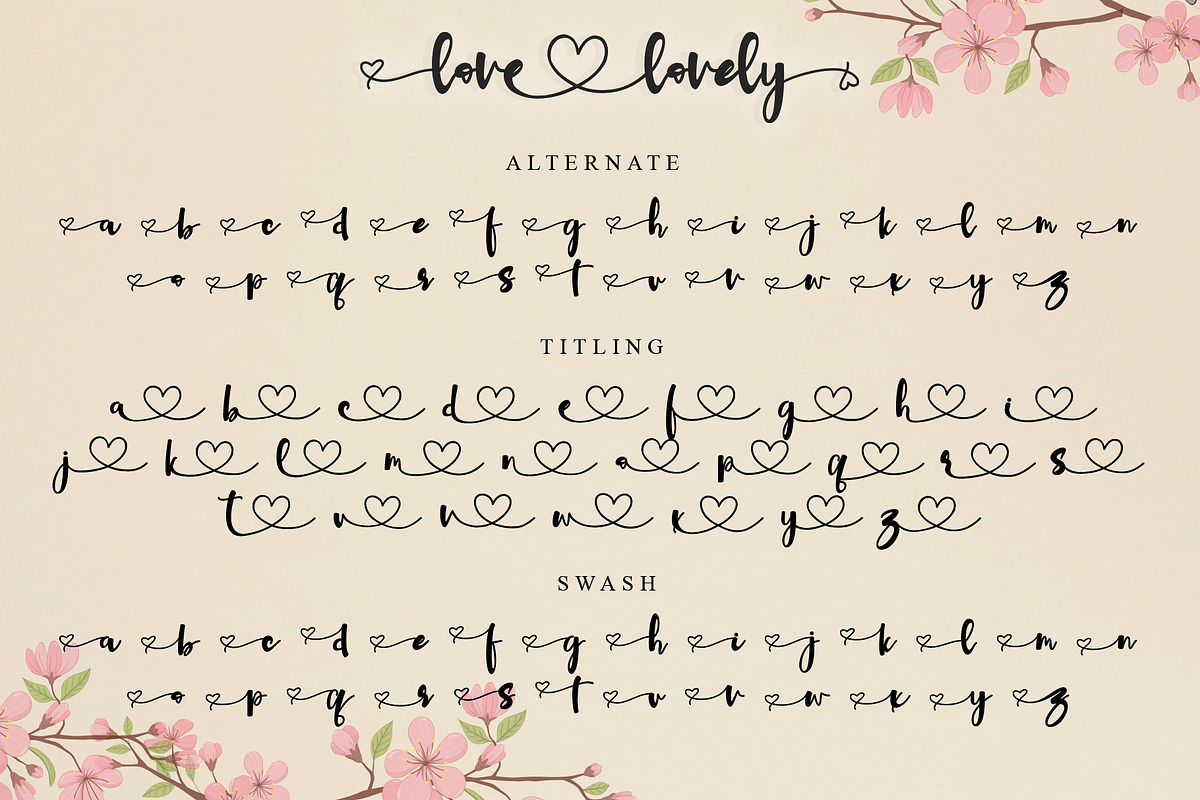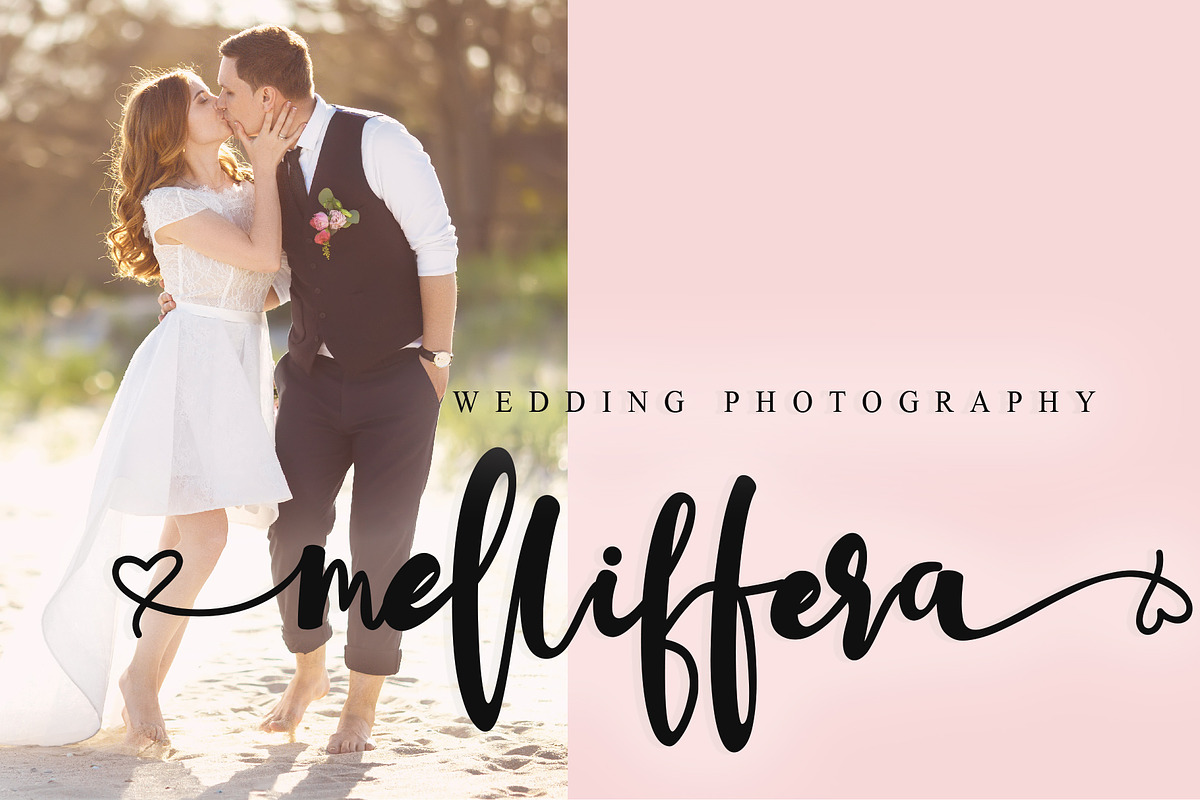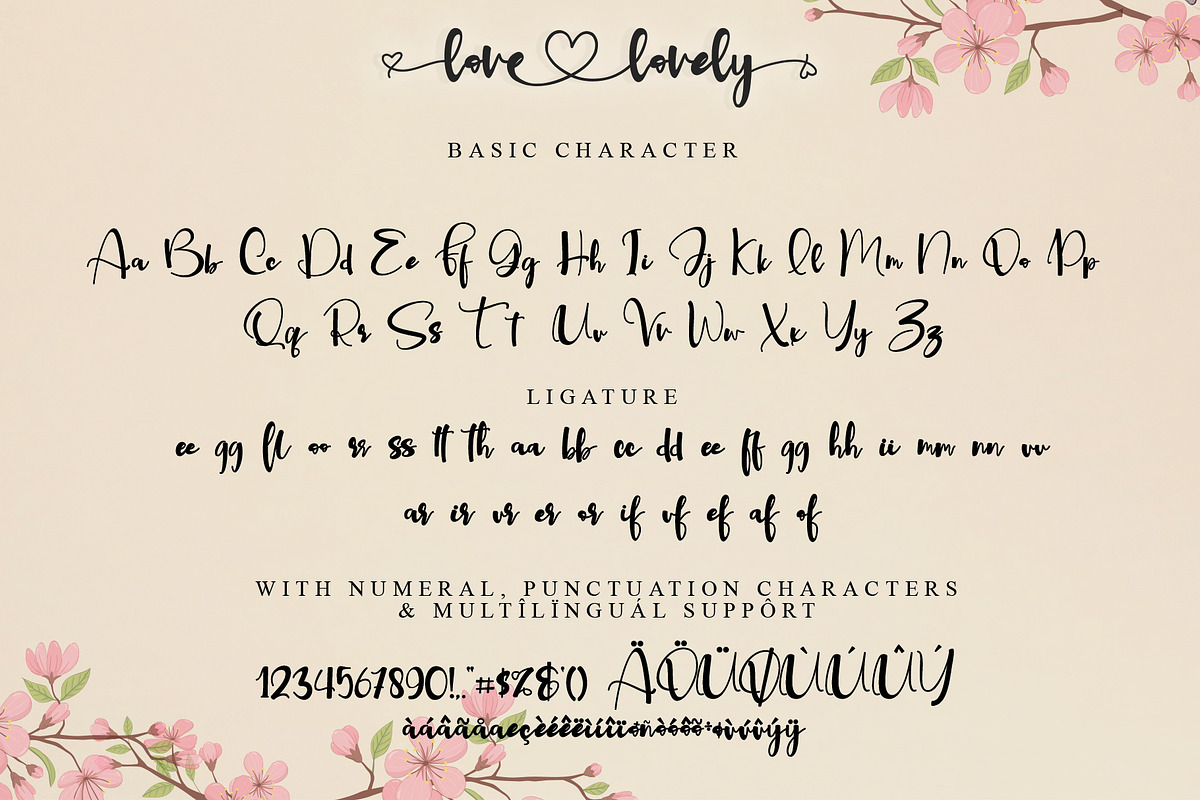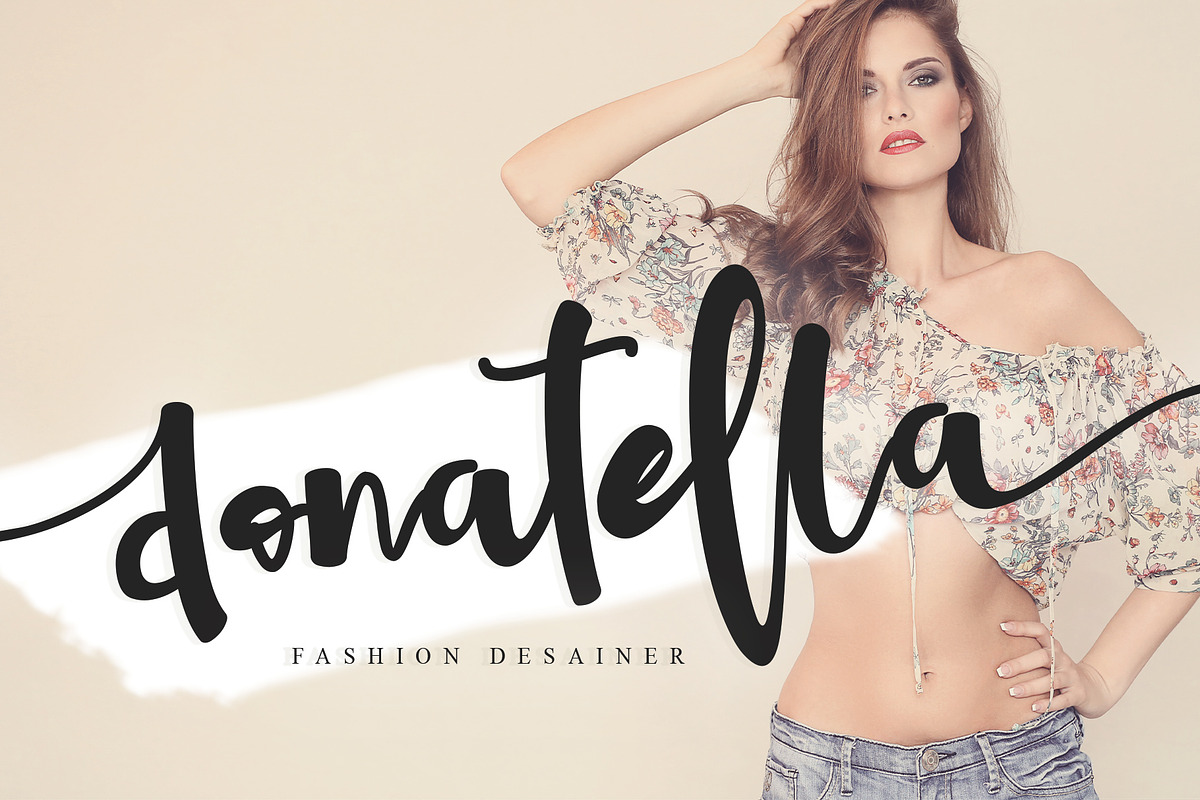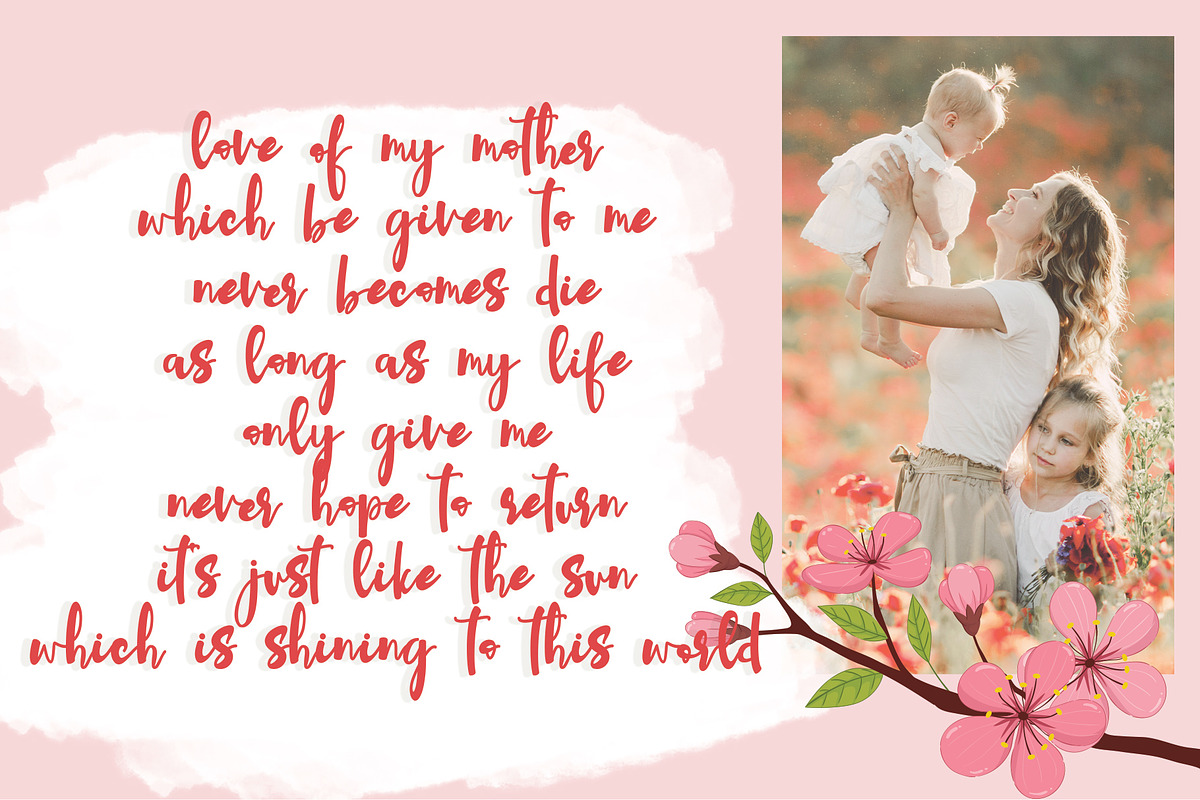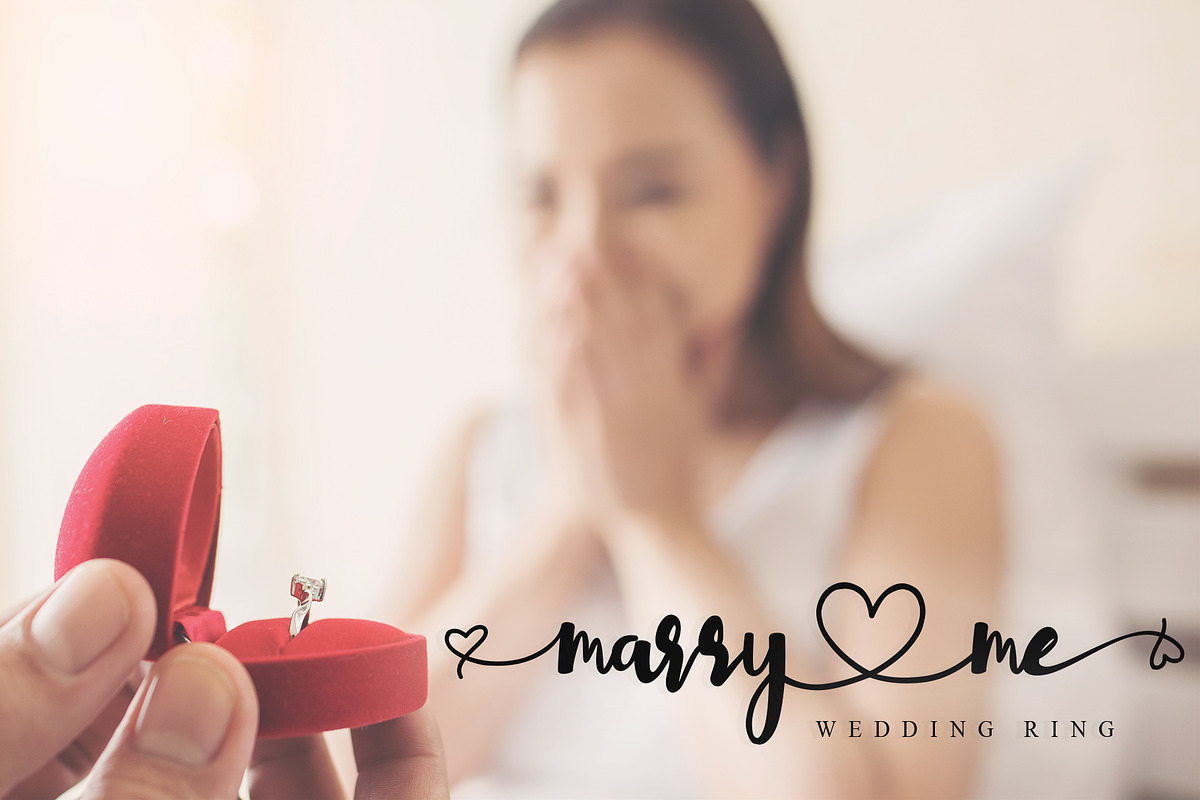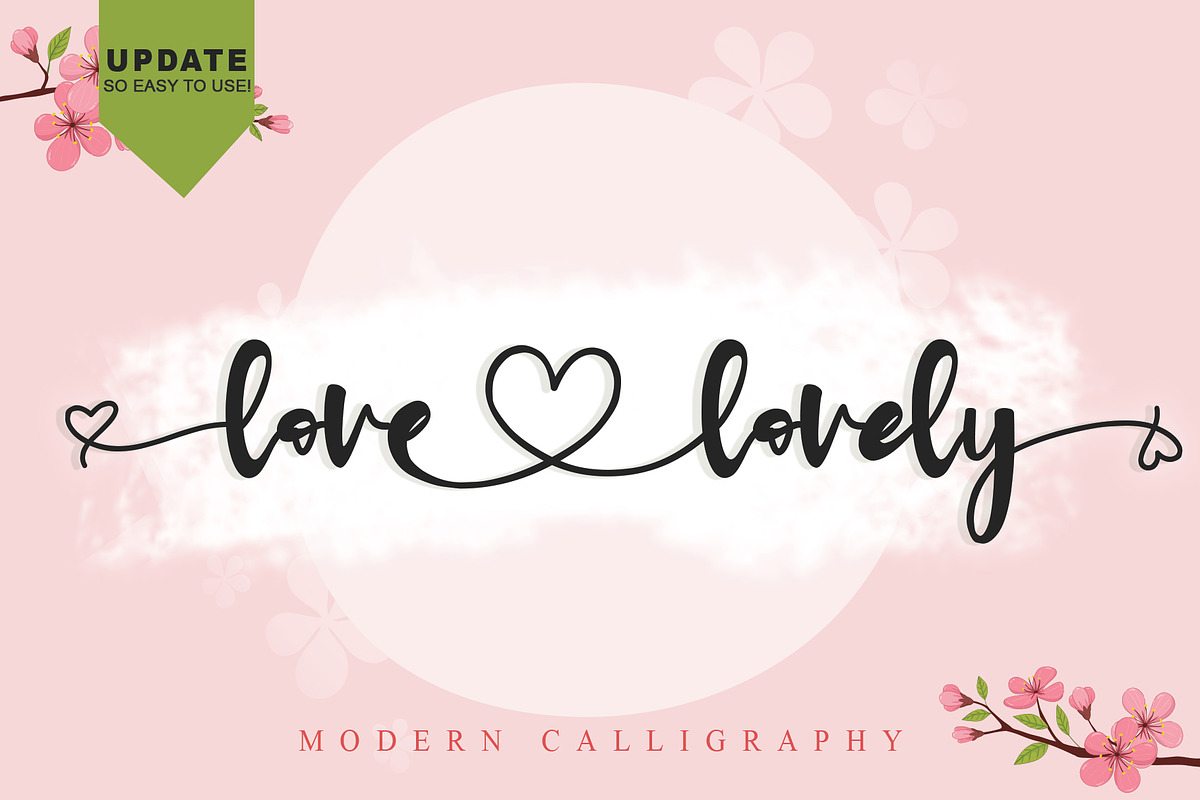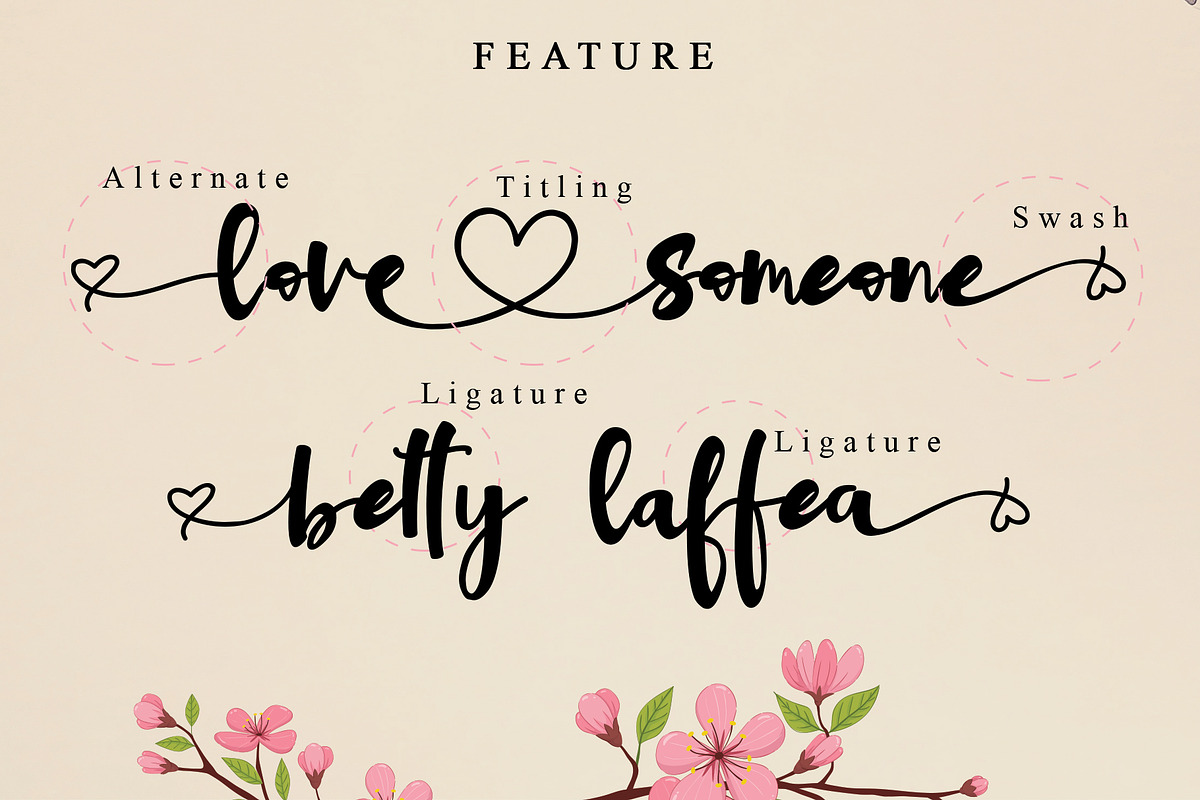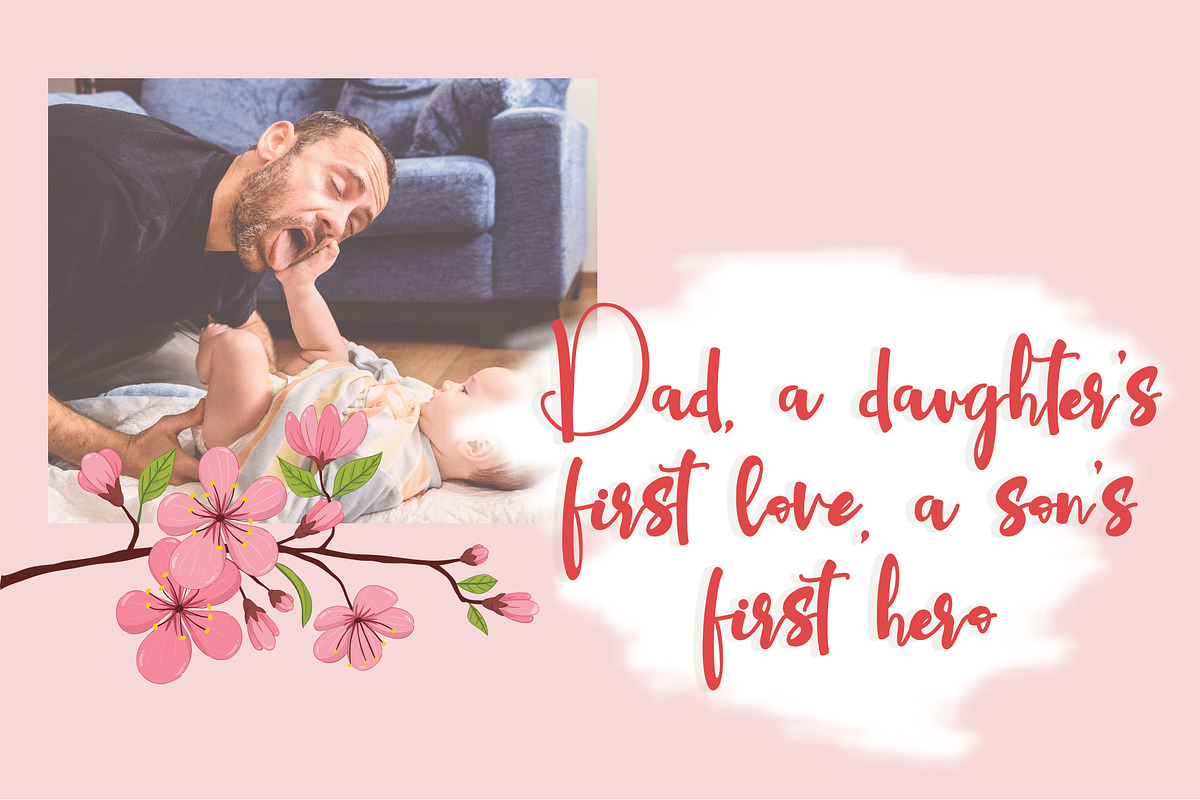
Love Lovely
Love Lovely is a cute handwritten font. It features amazing heart-shaped titling. These cute handwritten fonts with connecting hearts are great for creating personalized items. This font is PUA encoded which means you can access all of the cute glyphs and swashes with ease! It also features a wealth of special features including alternate glyphs and ligatures. Fall in love with its authentic feel and use it to create gorgeous wedding invitations, beautiful stationary art, eye-catching social media posts, and cute greeting cards, and many more.
- Many features: Alternate, Titling, Swash, and Ligature
- Support multilingual; ä ö ü Ä Ö Ü ß ¿ ¡